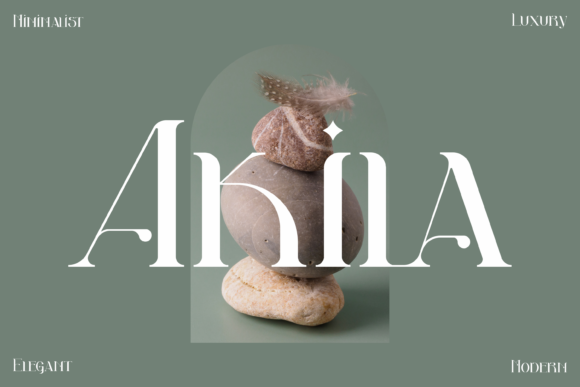
Introduction to Akila Font
Akila is a luxurious and detailed serif font.
It will add a lovely spark to any design project that you wish to create This font is PUA encoded which means you can access all of the amazing glyphs and ligatures with ease.
Key Features of Akila Font
Why Choose Akila Font?
Akila Font offers exceptional quality and versatility, making it a valuable addition to your design toolkit. Whether you’re creating for personal projects or commercial use, Akila Font delivers professional results.